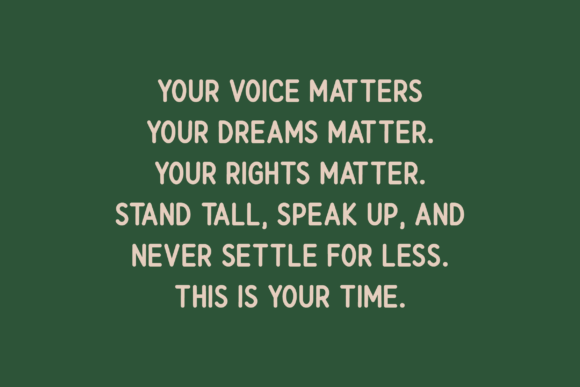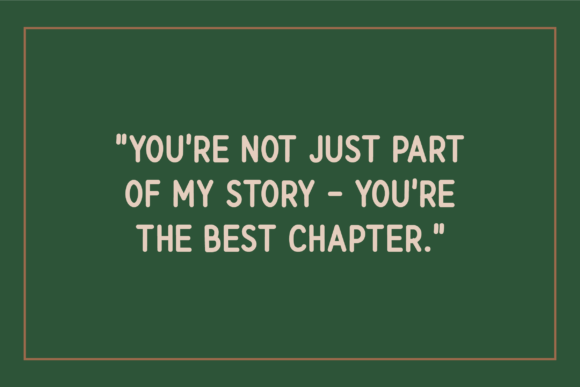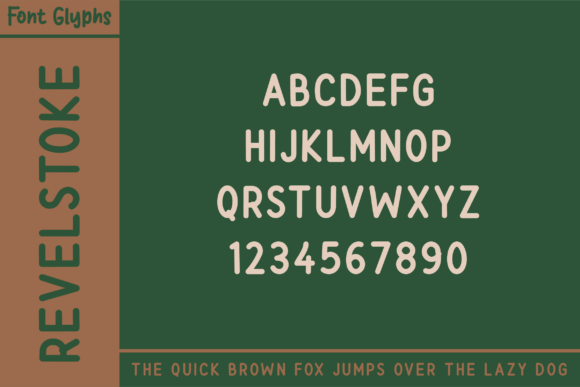
Introduction to Revelstoke Font
Revelstoke is a quirky all caps font made up of capital letters A-Z, numbers 0-9, accented characters and punctuation.
This font is perfect for social media or crafty projects Simple and smooth perfect for crafting, t-shirts, decals, cards, invitations and so much more.